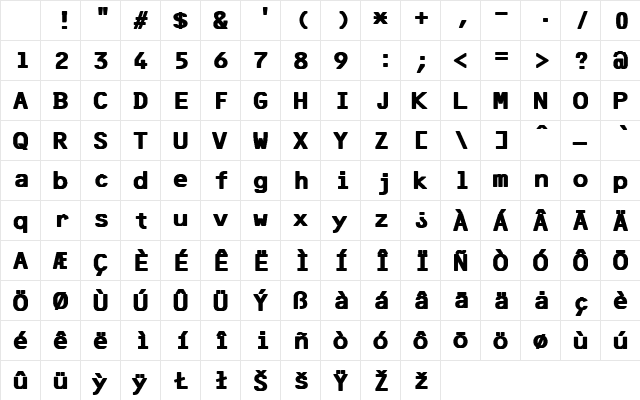
Complete F25 Bank Printer Bold glyph index. Displaying only characters natively supported by F25 Bank Printer Bold font.
F25 Bank Printer is a composed and adaptable typeface that performs quietly and consistently across a wide range of design contexts. Its bold stroke weight gives it real presence on the page.